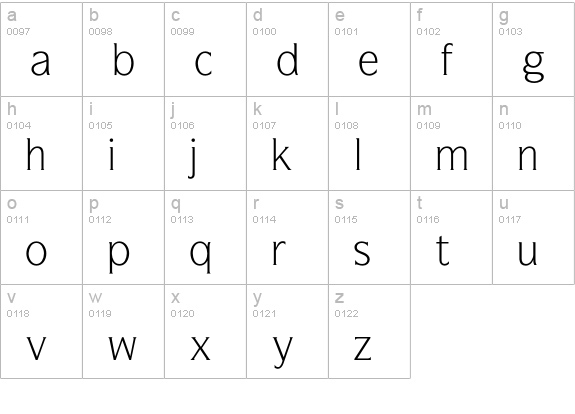
SymbolBook font is a versatile and elegant typeface that combines classic design elements with a modern twist. With its clean lines and stylish curves, this font is perfect for a wide range of design projects, from branding to editorial design. The SymbolBook font features a unique set of symbols and characters that add a touch of sophistication to any project. Best of all, SymbolBook font is available for free download at FontsMarket.com. This means you can easily access this beautiful font and use it in your designs without any cost. Whether you are a professional designer or a hobbyist, SymbolBook font is a great addition to your font collection. Download it now and elevate your design projects with this stunning typeface.